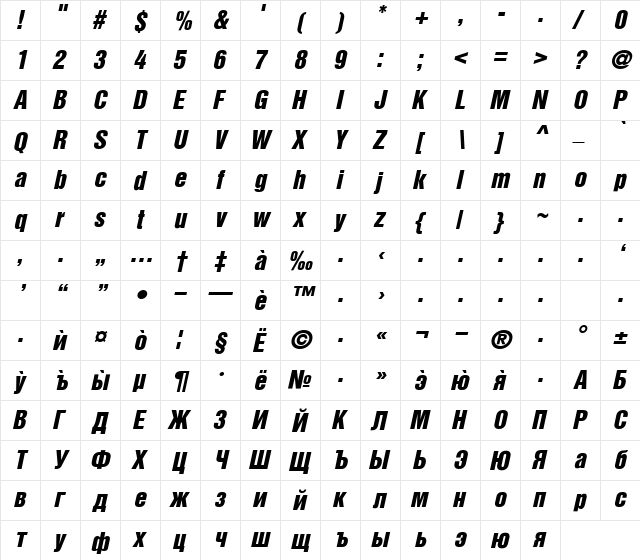
Iskar Bold Italic Font Preview
Iskar Bold Italic
Iskar Bold Italic Font Details
Design Context for Iskar Typeface
Iskar takes a measured approach to typography — its balanced proportions and neutral character make it a reliable workhorse for both digital and print work. Its italic angle brings a sense of urgency and motion to the letterforms. Its bold stroke weight gives it real presence on the page.
Pro Tip: Use Iskar for emphasis, pull quotes, and subheadings where its slanted energy can add rhythm to the layout.